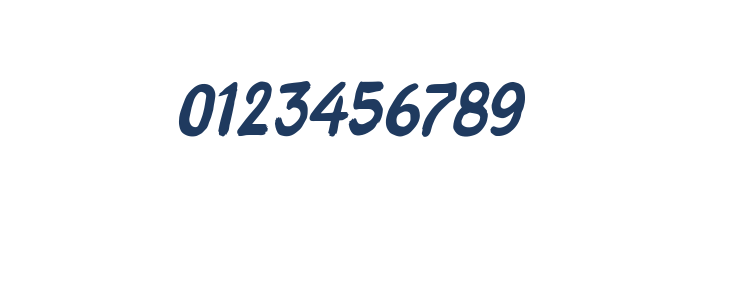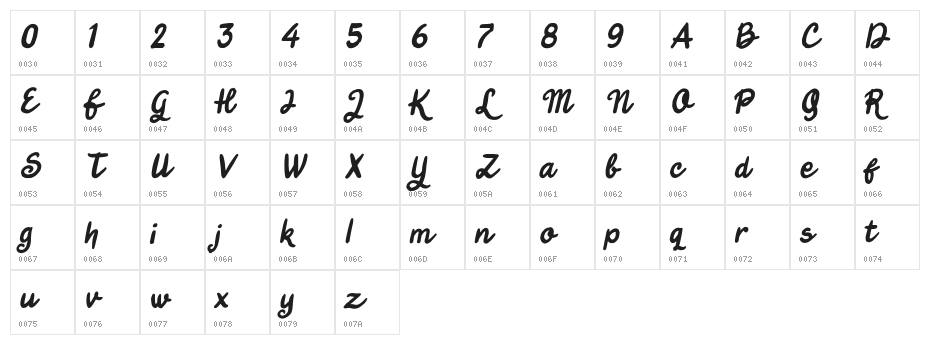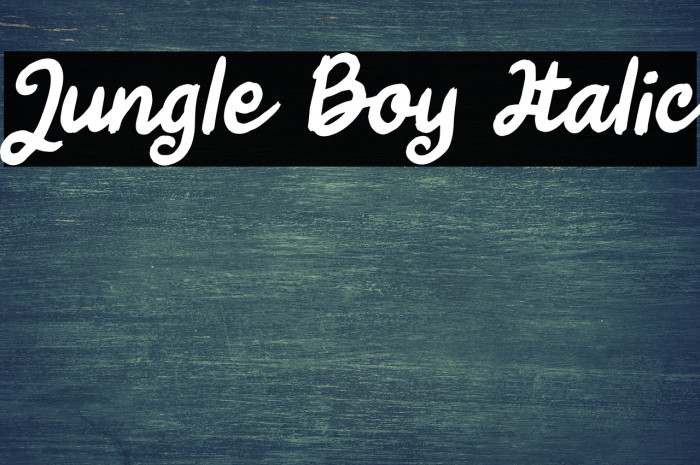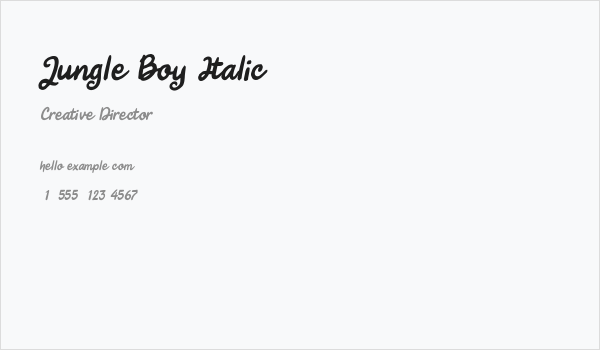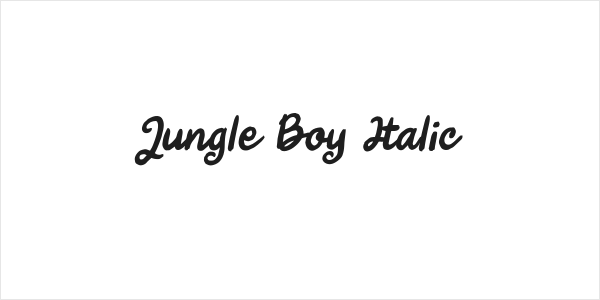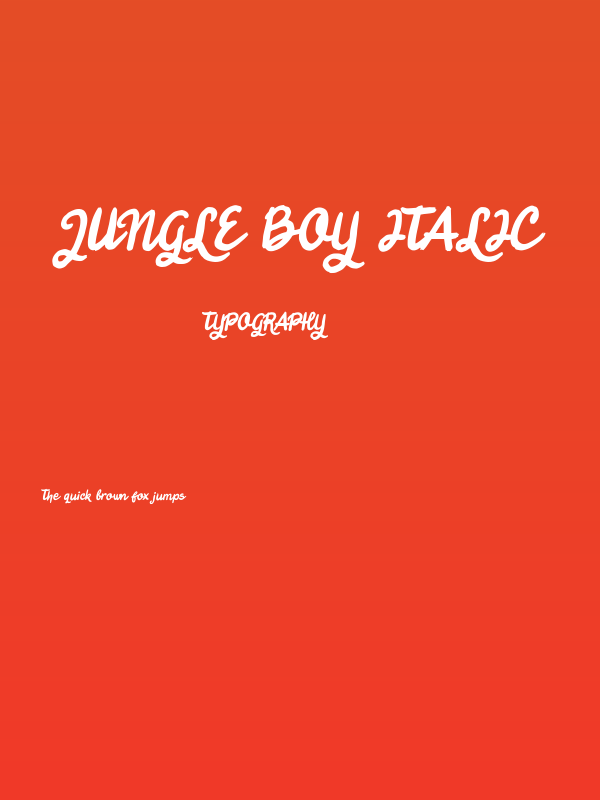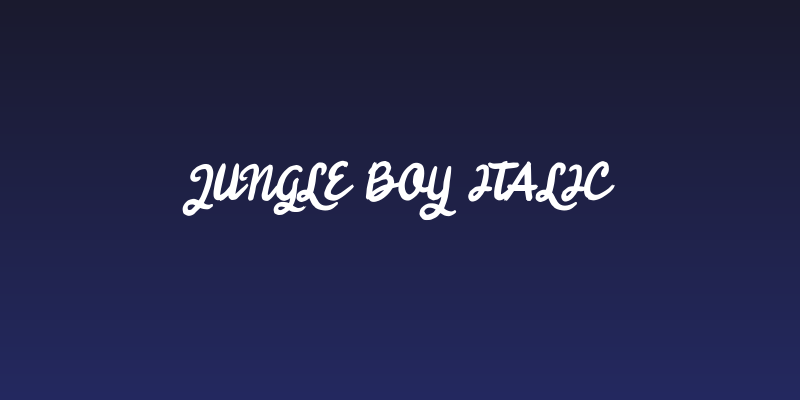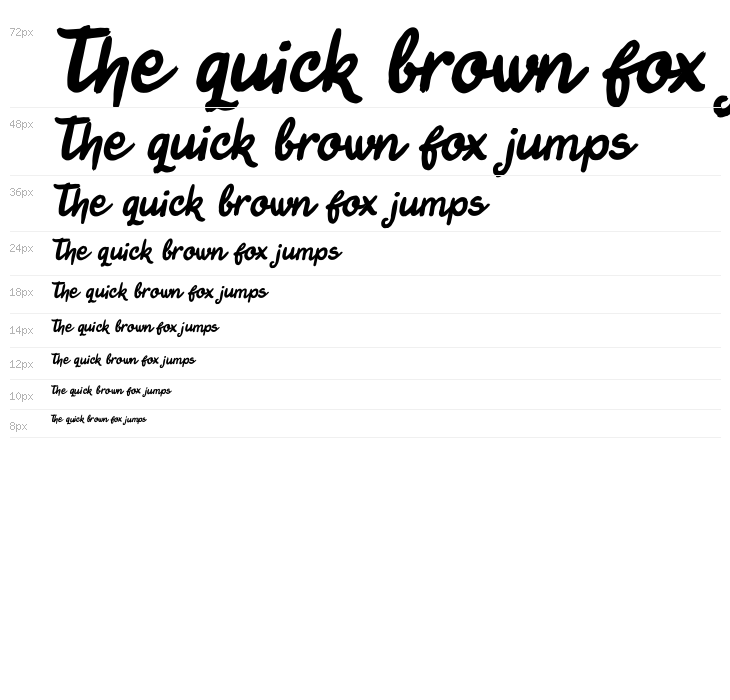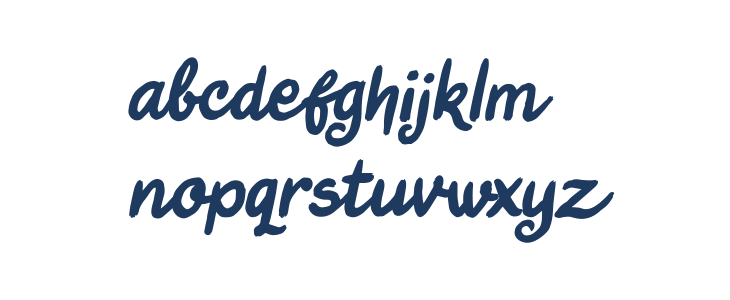
Jungle Boy Italic Font
Jungle Boy Italic Description
This font features a bold, dynamic script style with a playful and energetic appearance. The letters are interconnected, giving it a fluid and continuous look. The strokes are thick and consistent, providing a strong visual impact. The uppercase letters are slightly larger than the lowercase, maintaining a balanced and harmonious design. The numbers follow the same style, ensuring uniformity across all characters. The special characters are creatively integrated, adding to the font's overall charm. Its italic slant enhances the sense of motion and liveliness.